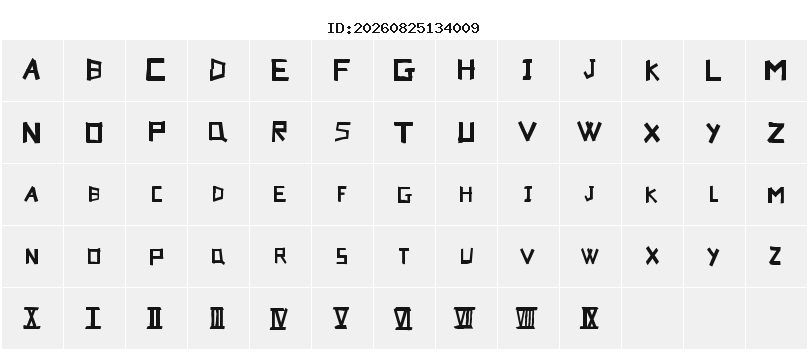
SURU Preview
• Font Name: SURU
• Full Font Name: SURU
About SURU.ttf
SURU.ttf is a modern, elegant sans-serif font designed for ultimate readability and visual harmony. Perfect for branding, headlines, web design, and print materials.